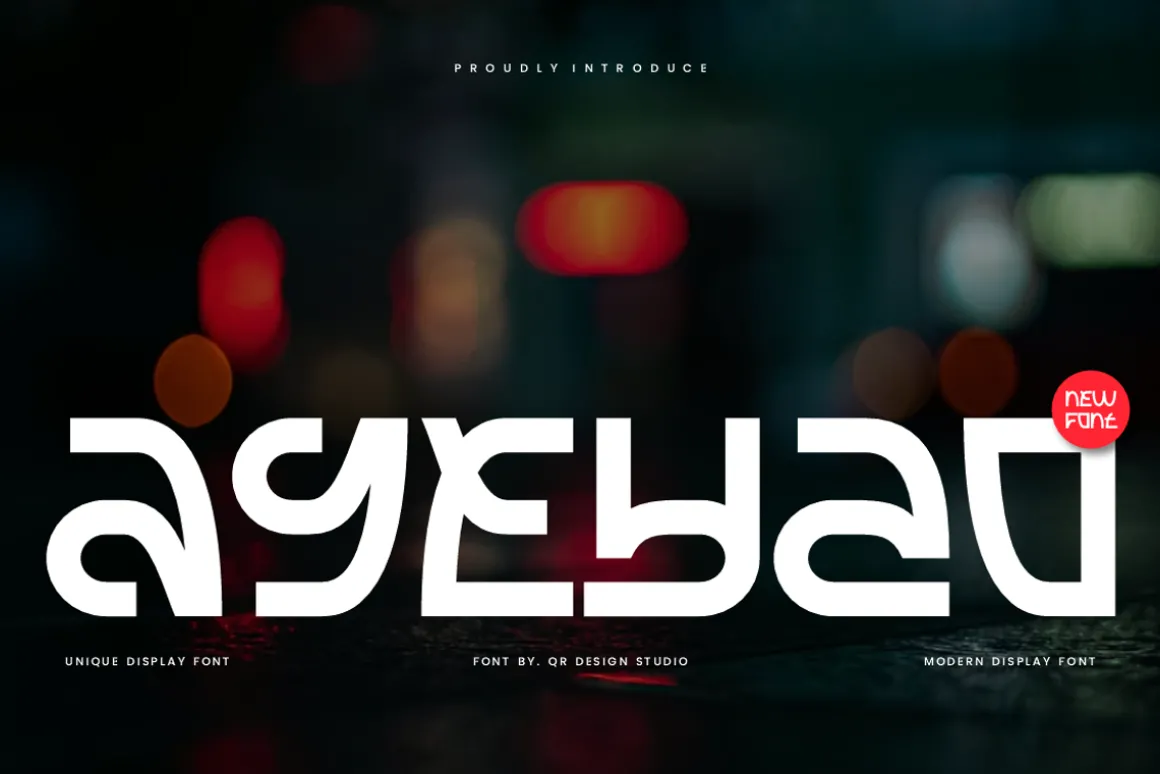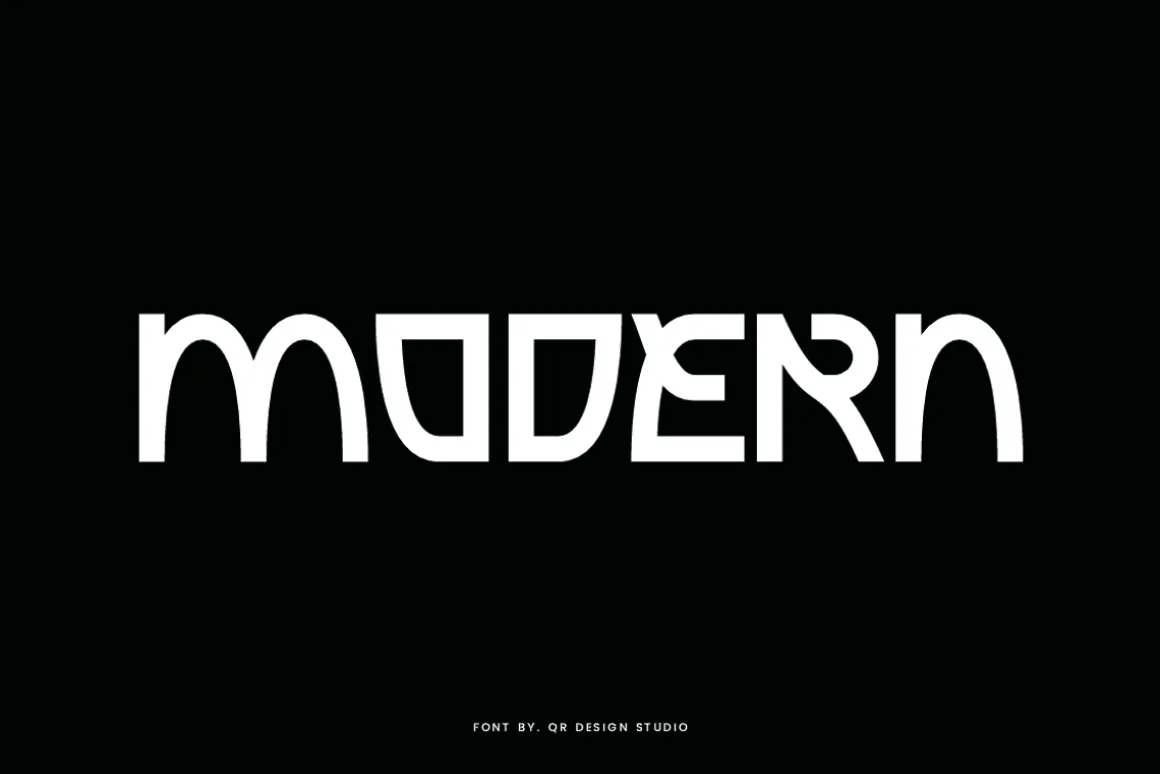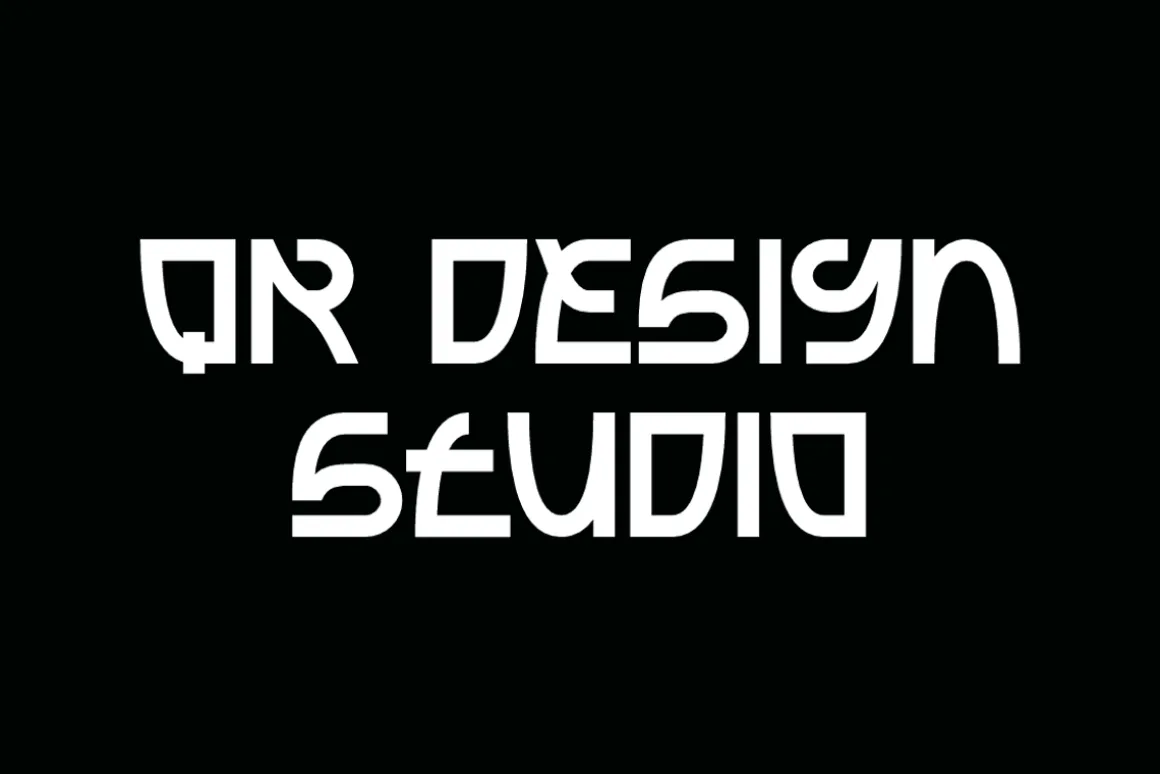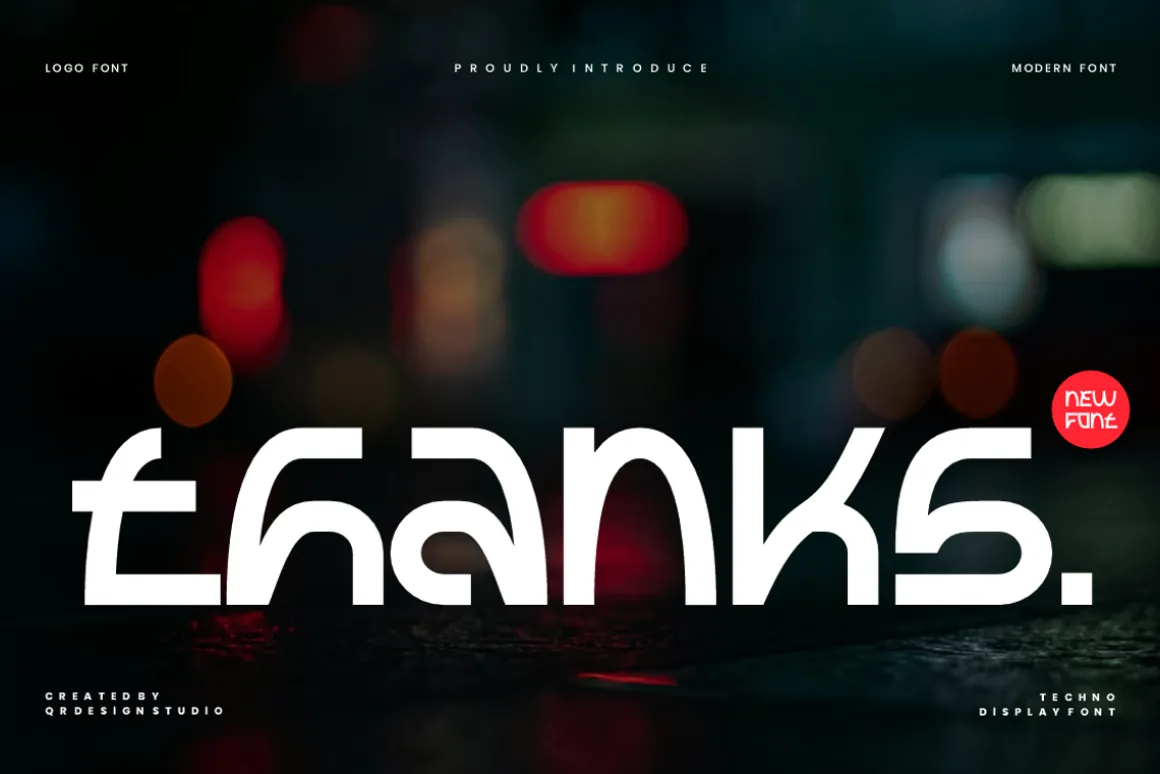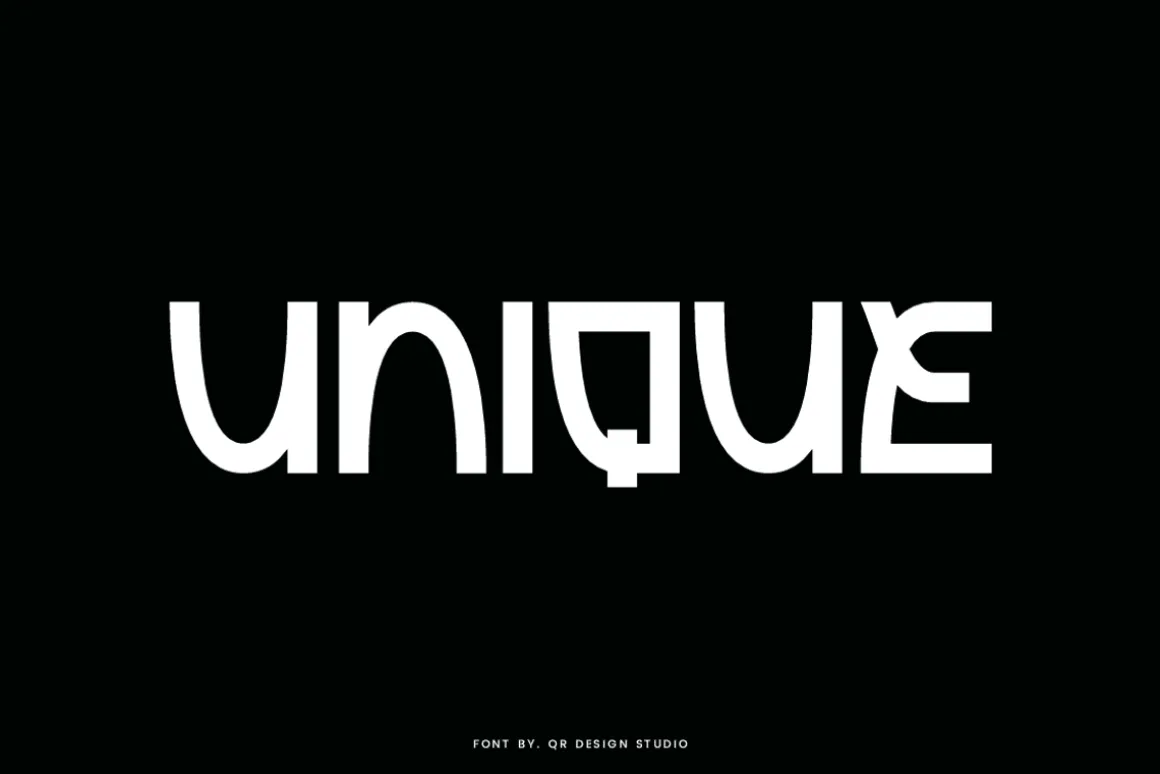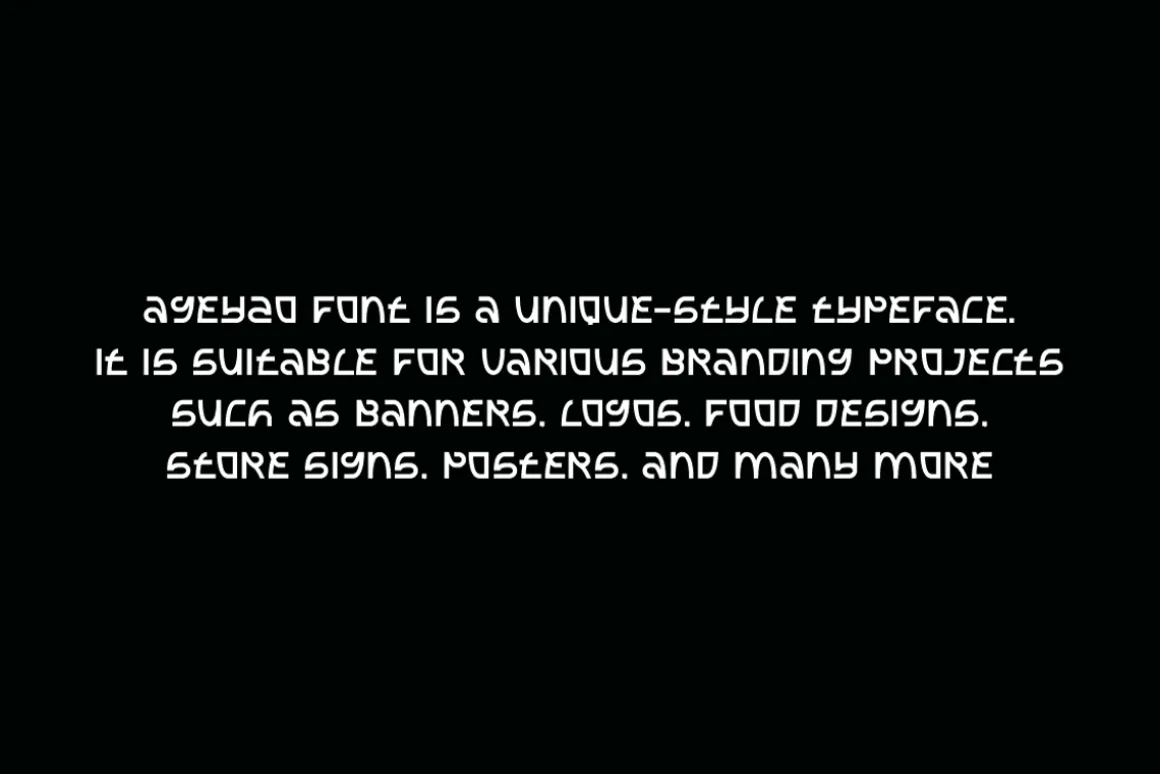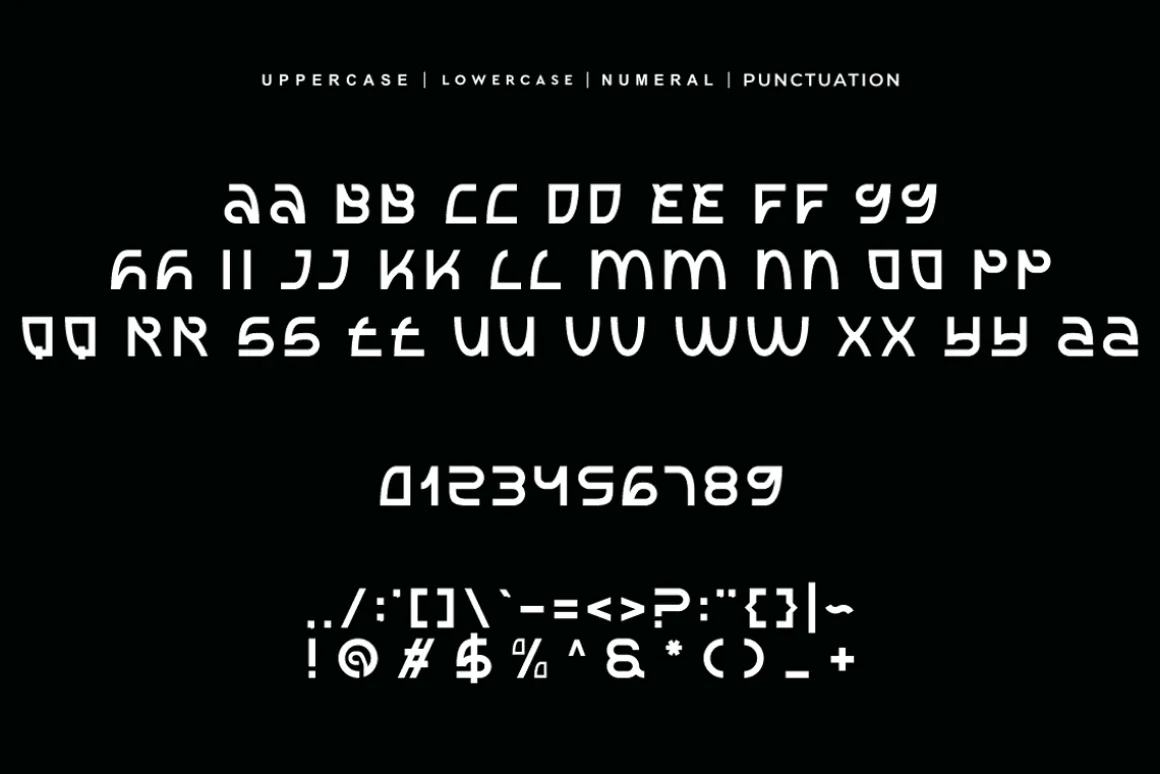
Ageyzo Font is a bold and authentic display typeface.
It’s perfect for various branding projects such as logos, modern designs,
and more. This font stands out beautifully in a wide range of contexts.